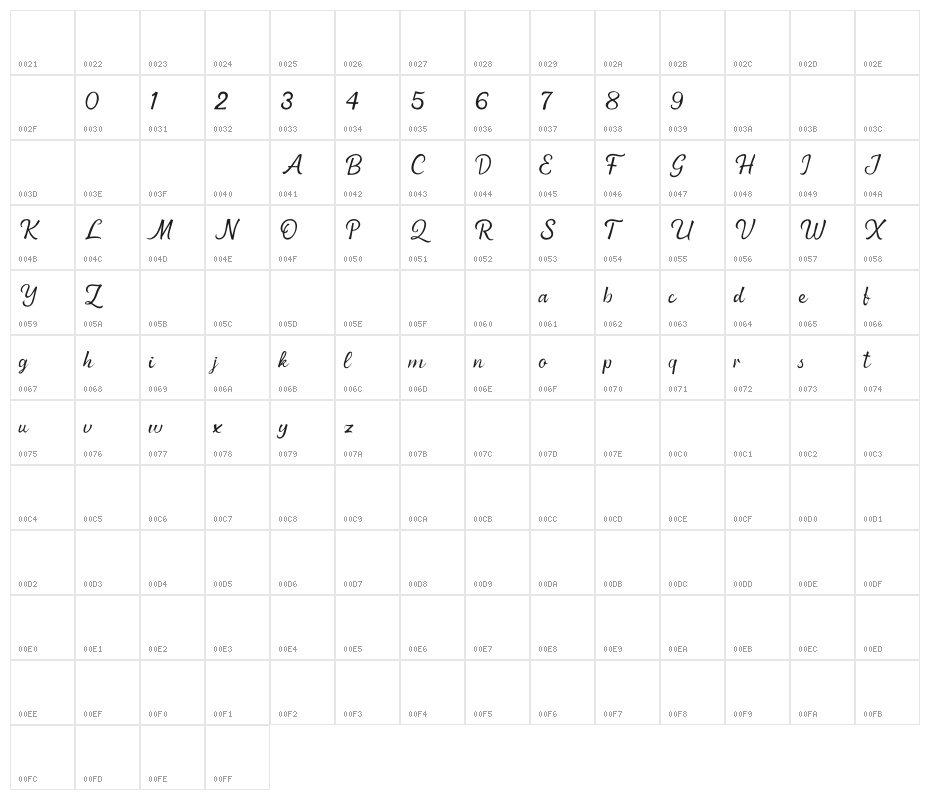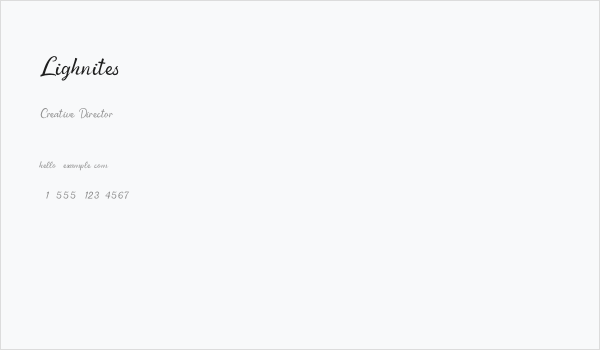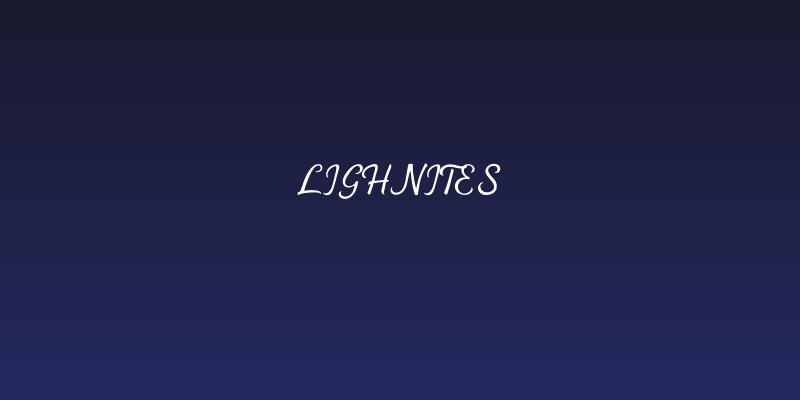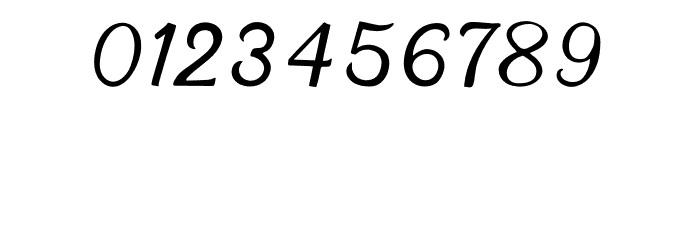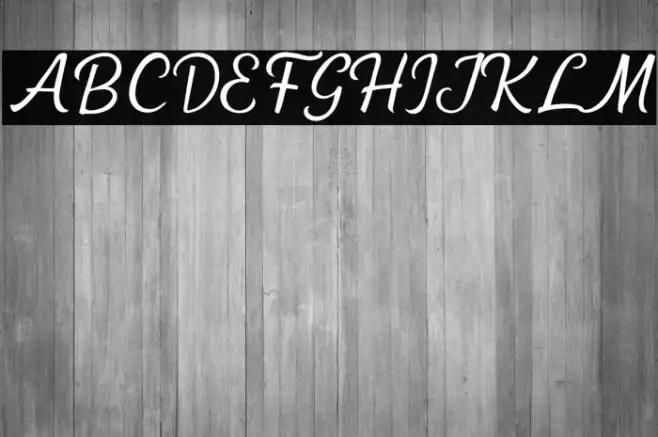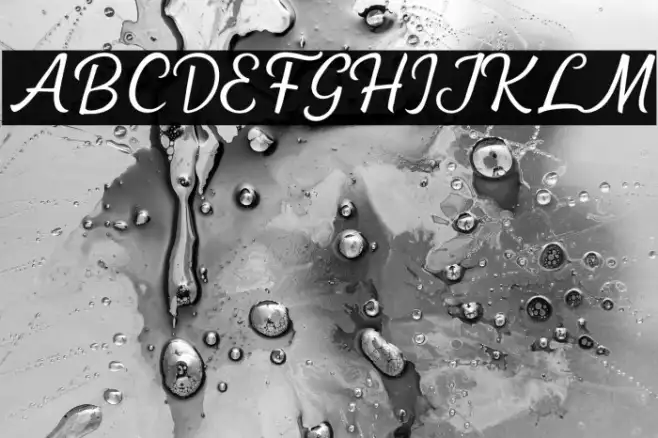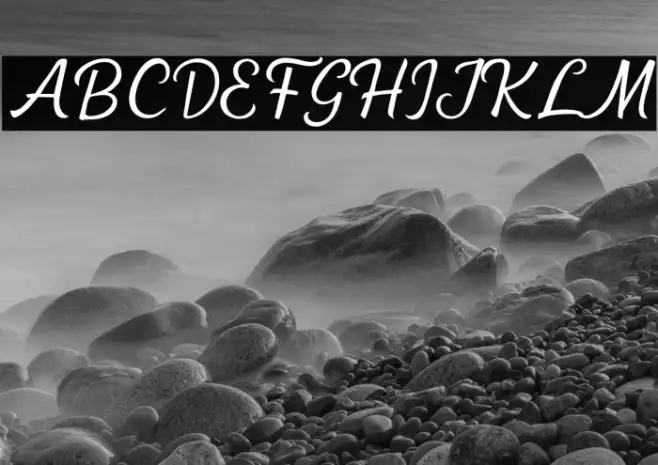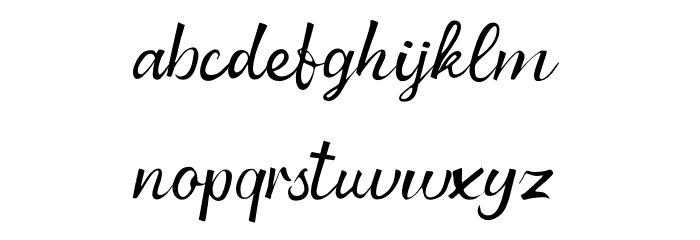
Lighnites Font
Lighnites Description
This elegant script font features flowing, cursive letterforms with a classic and sophisticated appearance. The uppercase letters are gracefully elongated, while the lowercase letters maintain a consistent, smooth flow. The numerals are styled to match the cursive nature of the alphabet, providing a cohesive look across all characters. The font's design is characterized by its medium contrast in stroke thickness, offering a balanced and readable appearance. The spacing between characters is normal, ensuring legibility while maintaining the decorative style.
| Proposed Projects | Ideal for wedding invitations, elegant branding, greeting cards, and decorative headlines. |